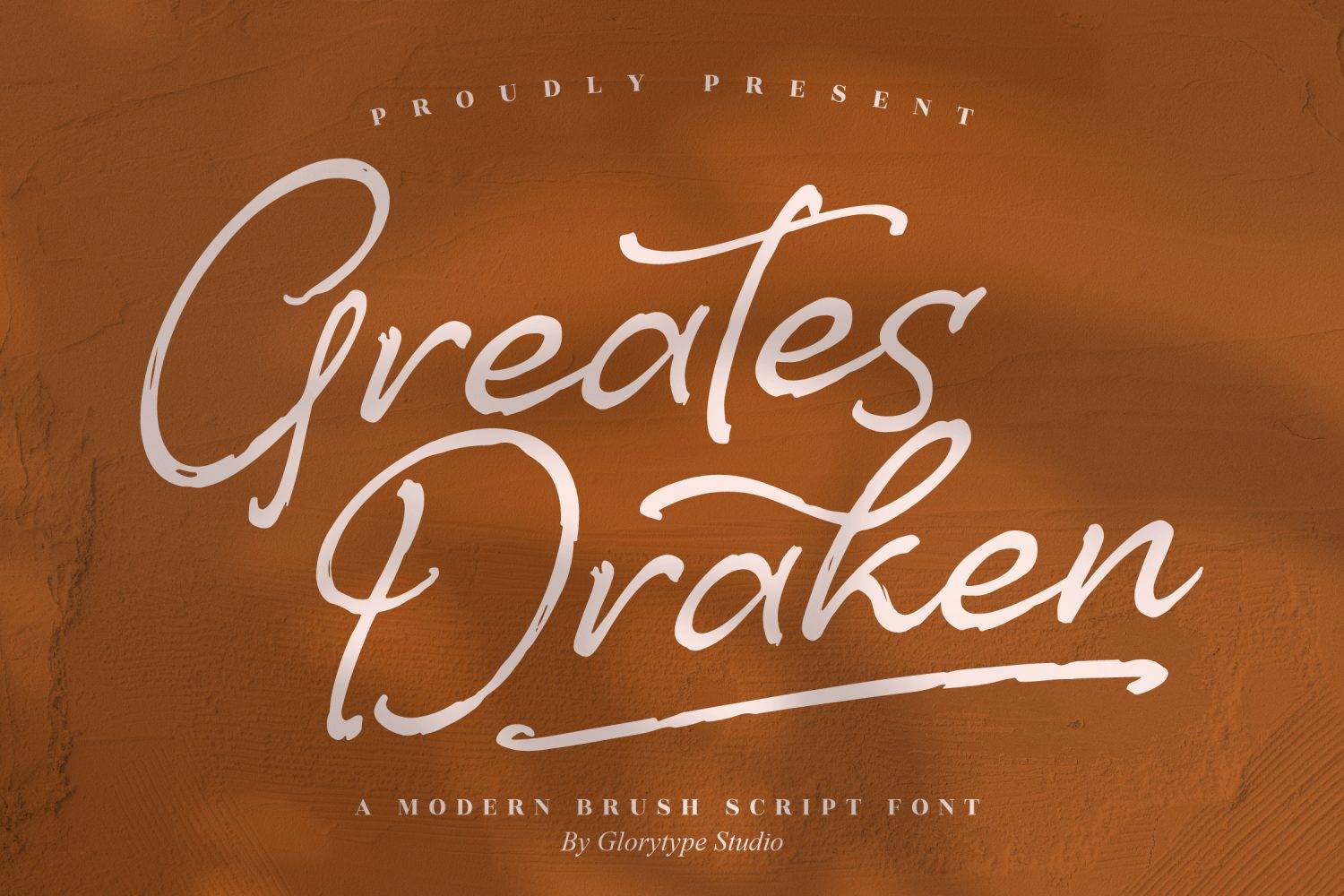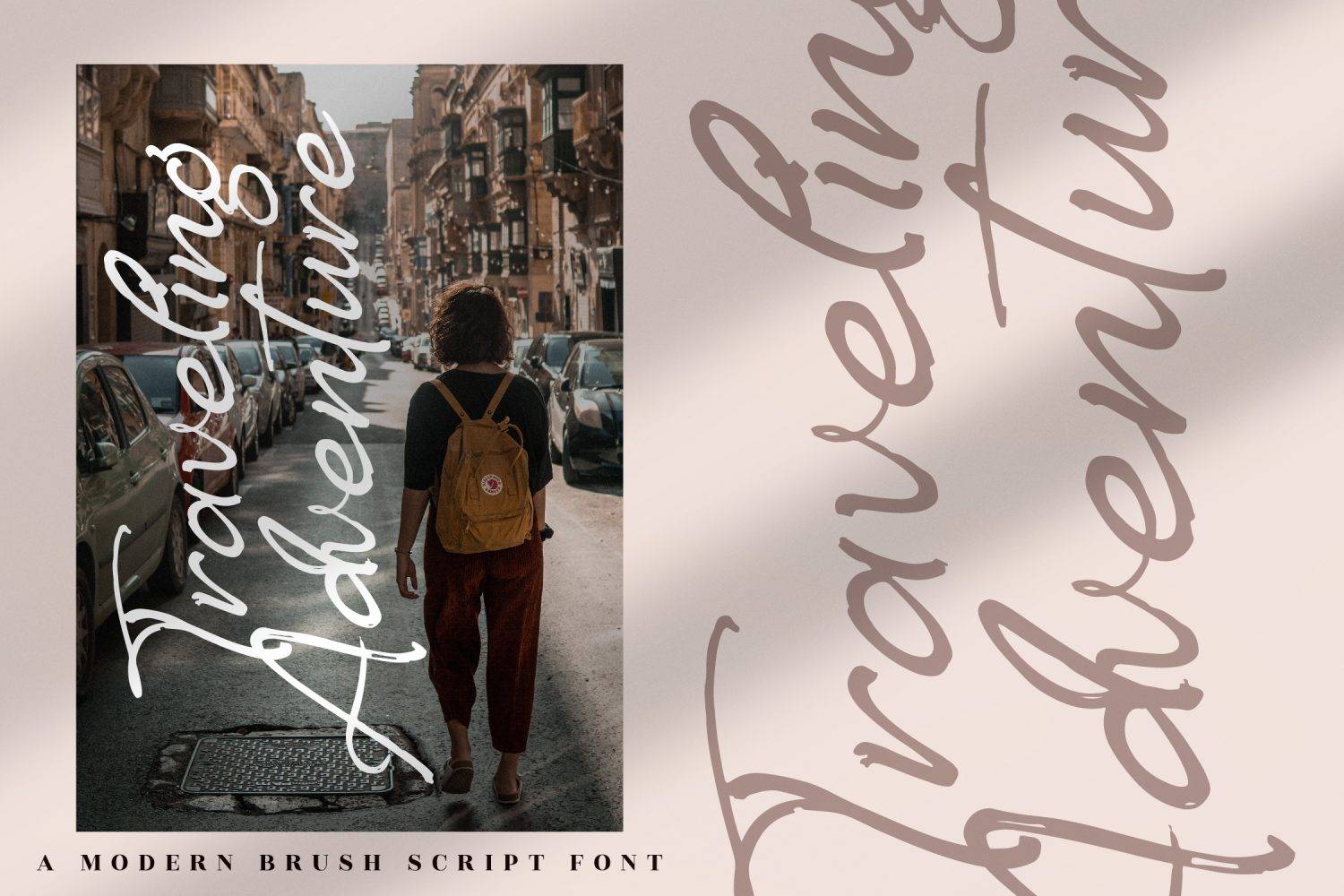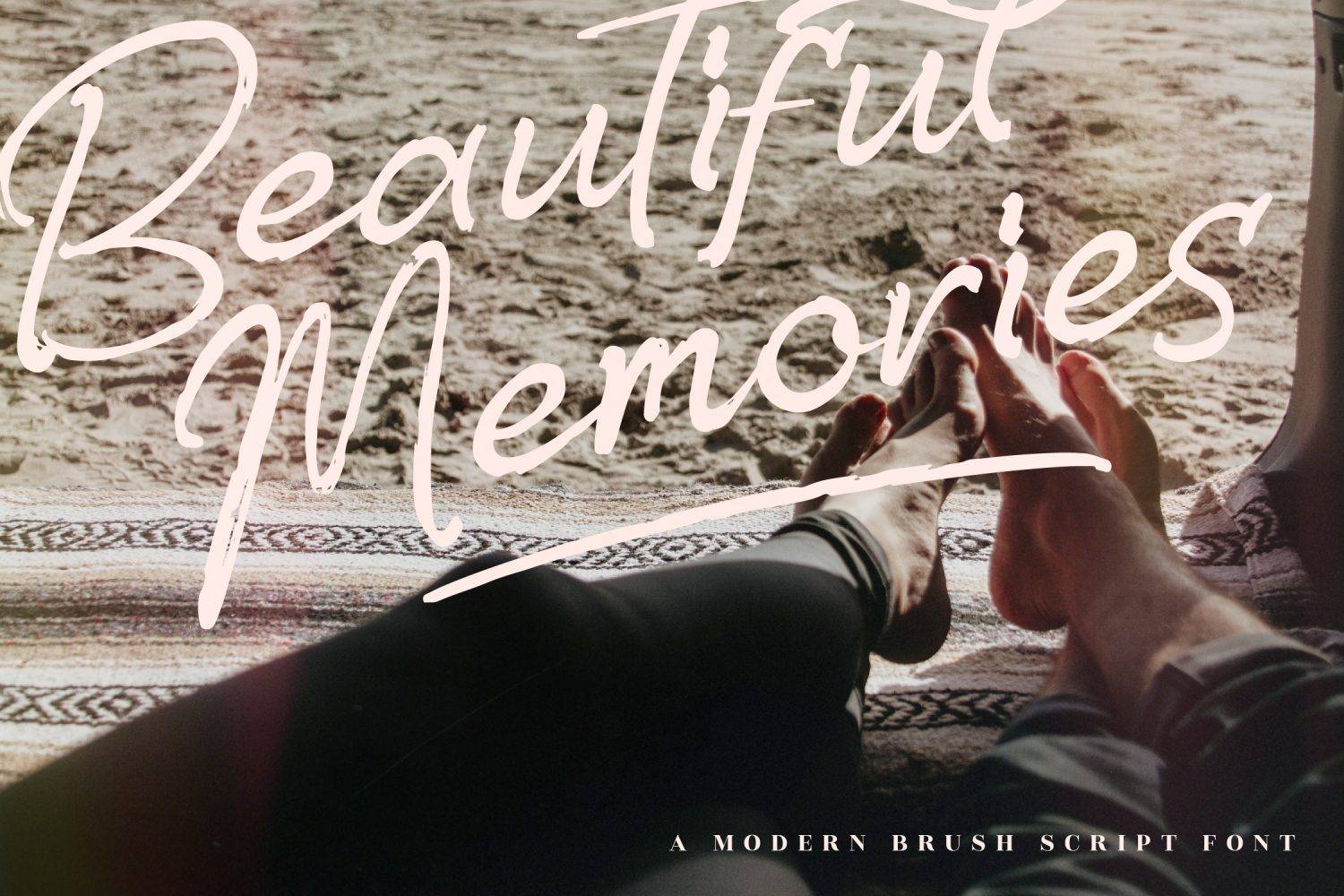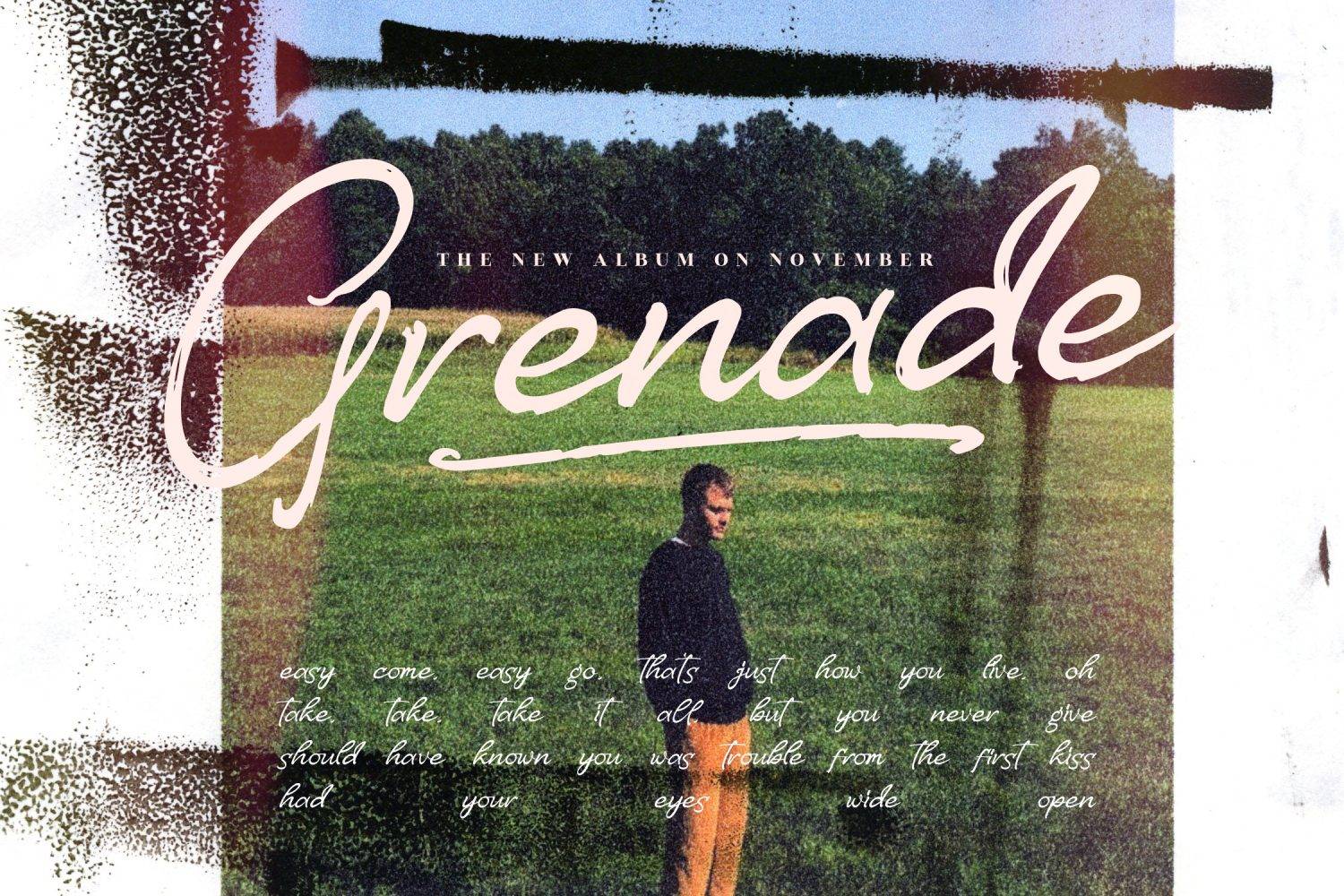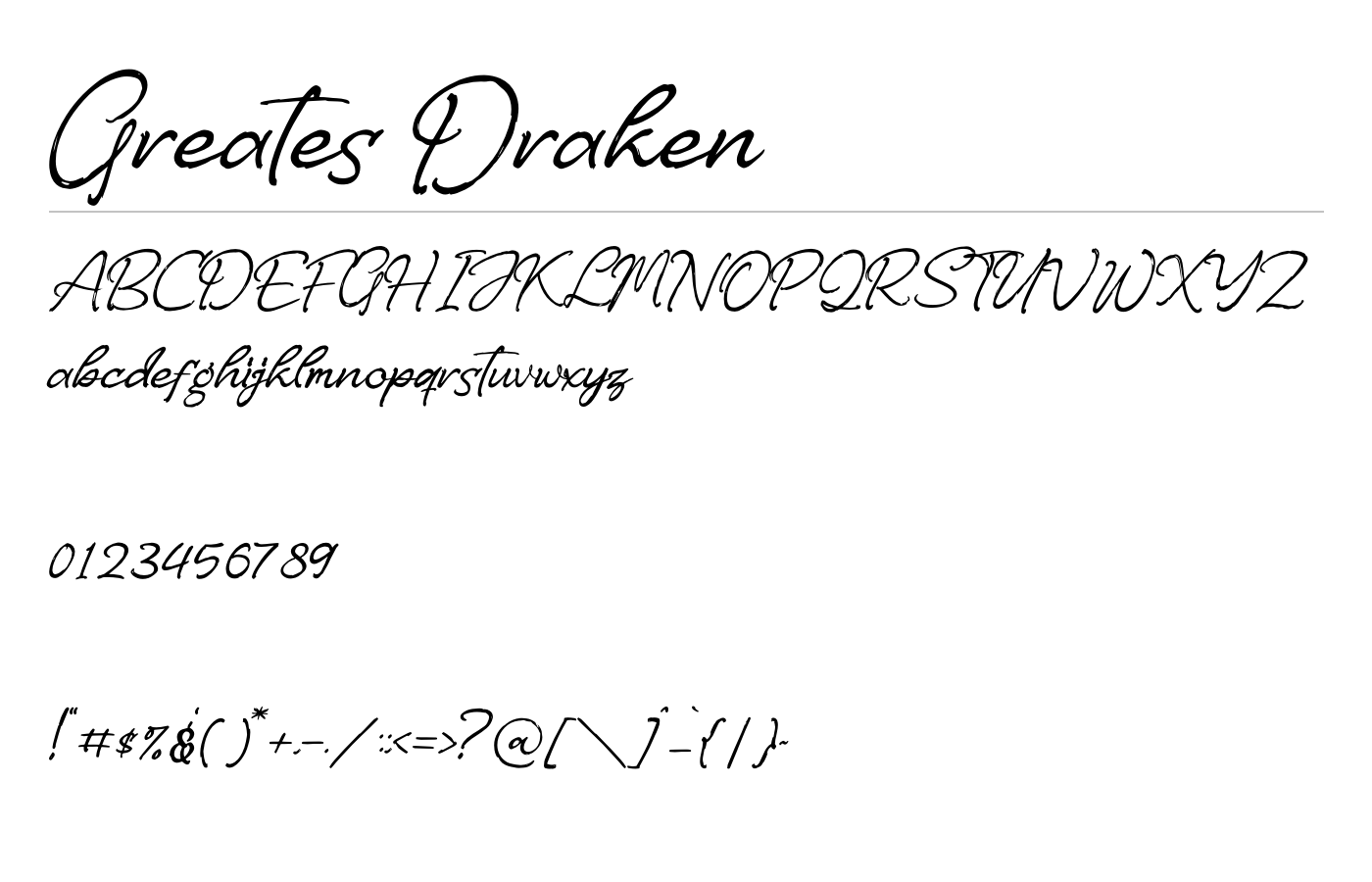
Greates Draken is a stylish, handwritten script font that captures a modern, elegant feel with its flowing, slightly irregular strokes and natural calligraphic flair. Its slender, dynamic letterforms make it perfect for adding a personal, sophisticated touch to invitations, branding, or creative headlines where a refined yet approachable personality is desired. This font shines in projects that seek a blend of artistry and readability, offering a unique charm without sacrificing clarity.
Greates Draken Font
About Greates Draken Font